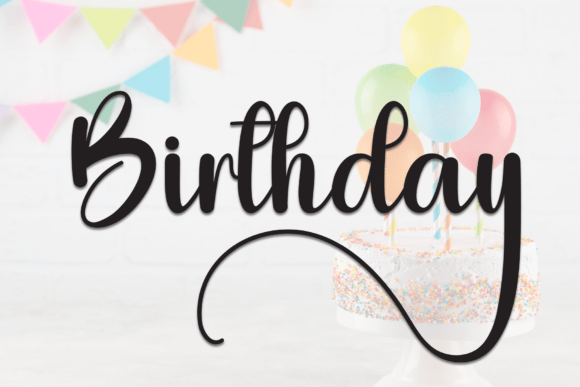
Creating Birthday Magic, One Font at a Time
Do you remember the first time you designed a birthday card for a loved one? The excitement of picking out the perfect colors, the perfect words, and the perfect font to make the recipient feel special? For many designers, that moment is what drives us to create beautiful and meaningful designs that bring joy to others. And what better way to capture that joy than with the Birthday Font?
This lively and elegant handwritten script font is designed to capture the festive and celebratory vibe of birthdays. With its joyful curves and swirly terminals, it’s perfect for birthday cards, party invitations, banners, and cheerful merchandise. Its dynamic flow makes every design feel personal and joyful, making it a valuable tool for designers looking to add a touch of whimsy and personality to their work.
Birthday Font Key Features
- Font Family: Birthday Font is a unique, hand-drawn font designed specifically for celebrating birthdays.
- Character Set: Includes a wide range of characters, including uppercase and lowercase letters, numbers, and special characters, making it suitable for various applications.
- Unique Characteristics: Features a playful, cursive style with decorative flourishes, making it perfect for adding a touch of whimsy and celebration to any design.
Birthday Font Review
I recently had the chance to work with the Birthday Font, and I’m here to share my honest thoughts. Overall, I’d say it’s a solid choice for those looking for a playful, celebratory font.
- The Birthday Font is incredibly easy to read, even at small font sizes. The characters are well-designed and well-spaced, making it perfect for body text or headings.
- The font’s bold and colorful aesthetic is perfect for birthday invitations, party decorations, and other celebratory materials.
- The font is highly customizable, allowing users to easily adjust the color, size, and style to suit their needs.
- The font may be a bit too playful for formal or professional applications, where a more subdued font may be more suitable.
- The font’s bold lines and bright colors may be overwhelming if used extensively, so be sure to use it in moderation.
- The font may not be suitable for users with visual impairments, as the bold lines and bright colors may cause eye strain.
Overall, I’d recommend the Birthday Font for those looking for a fun and celebratory font. While it may have some limitations, its ease of use and high customizability make it a great choice for the right project.
The Birthday Font is perfect for creating birthday invitations, party decorations, and social media posts. To get the most out of it, use it in combination with bright colors and fun graphics. You can also experiment with different font sizes and styles to create a unique look.